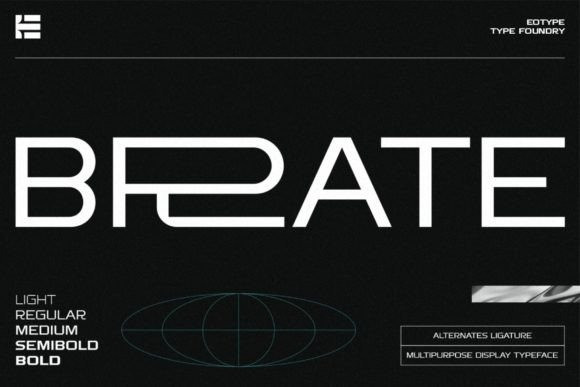
Brate Font
Brate Font is a stylish and modern font, designed to make a statement. Each letter is meticulously crafted, with clean lines and bold shapes that create a striking, contemporary look. This font is perfect for logos, headlines, and other attention-grabbing design elements, adding a touch of sophistication to any project.